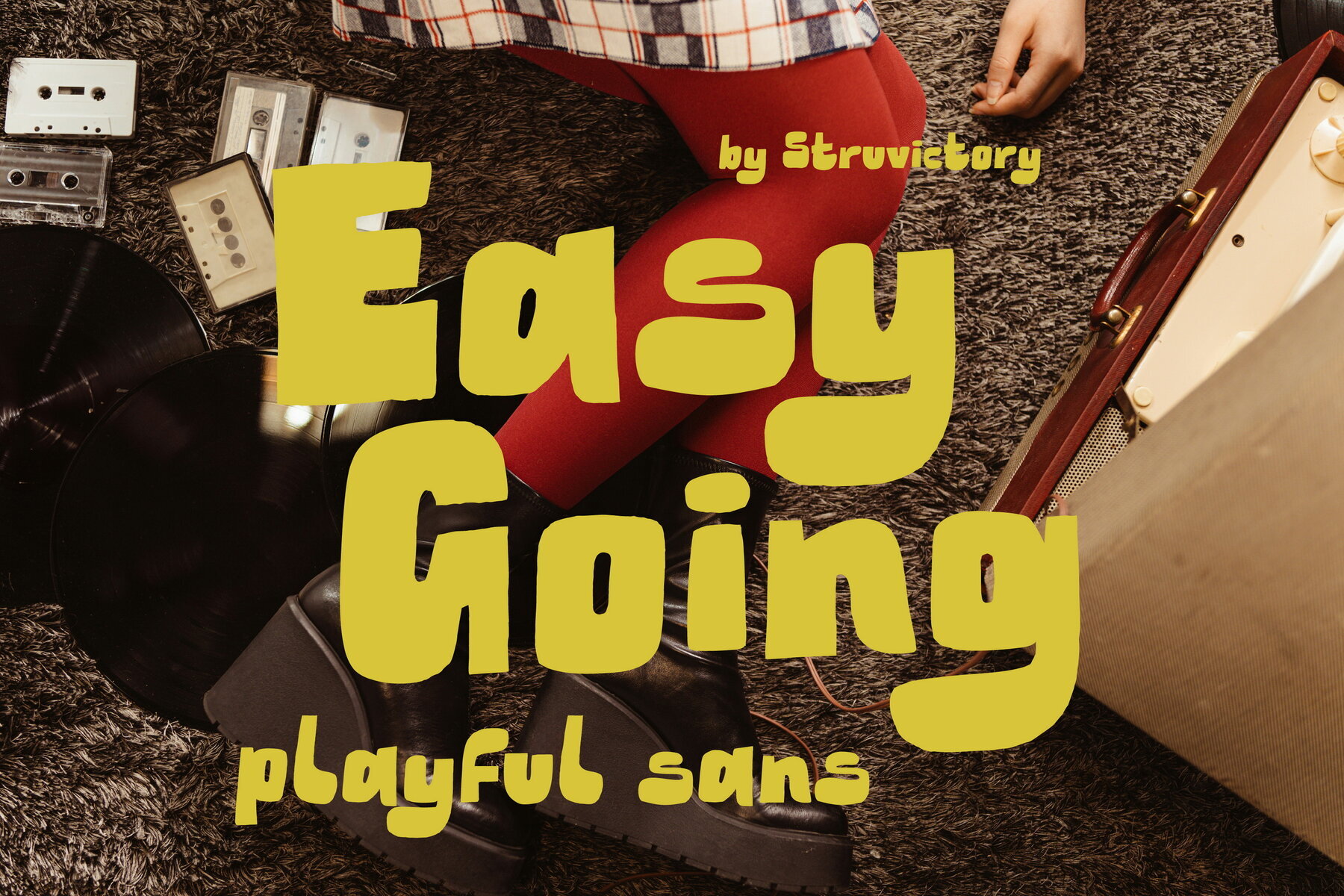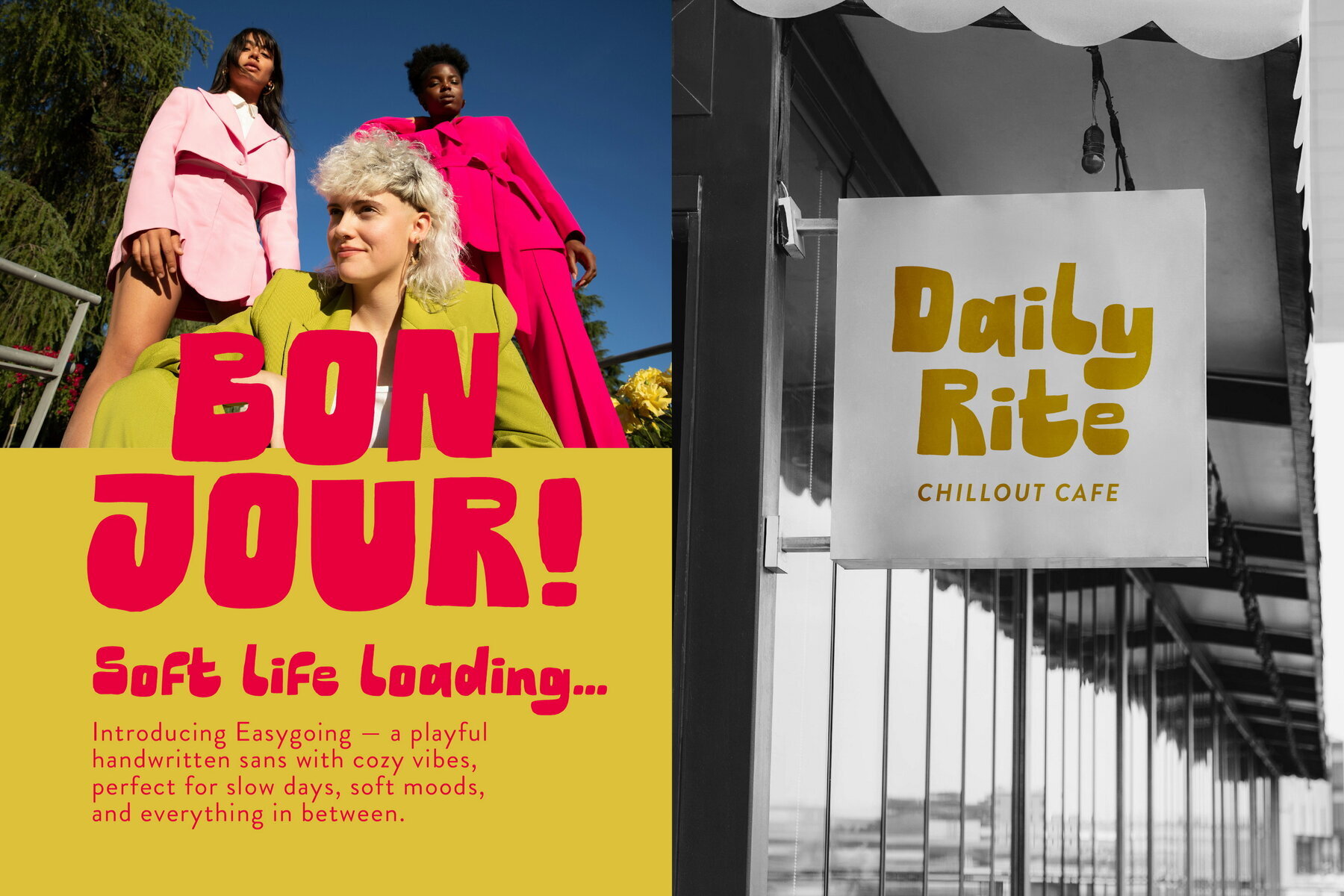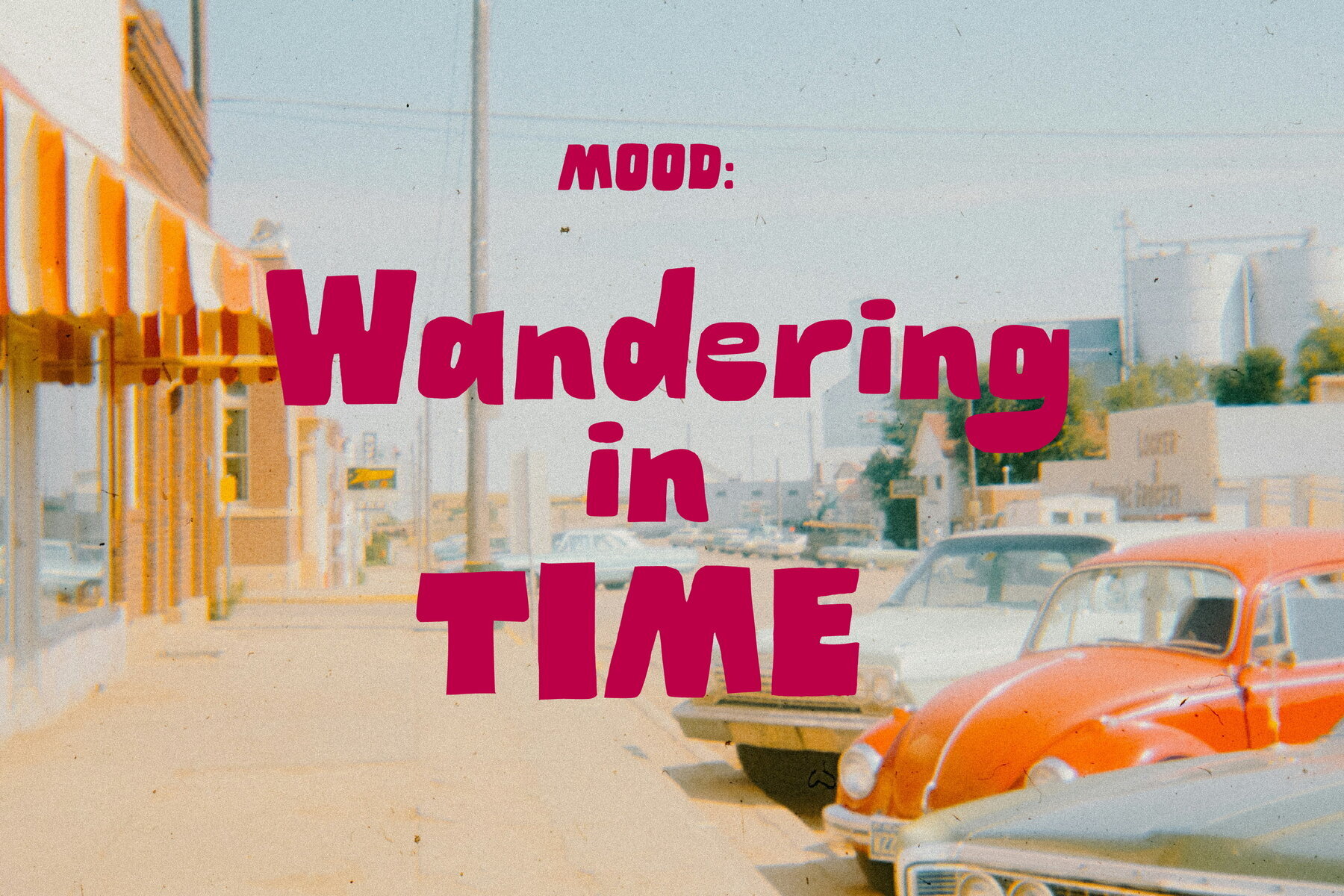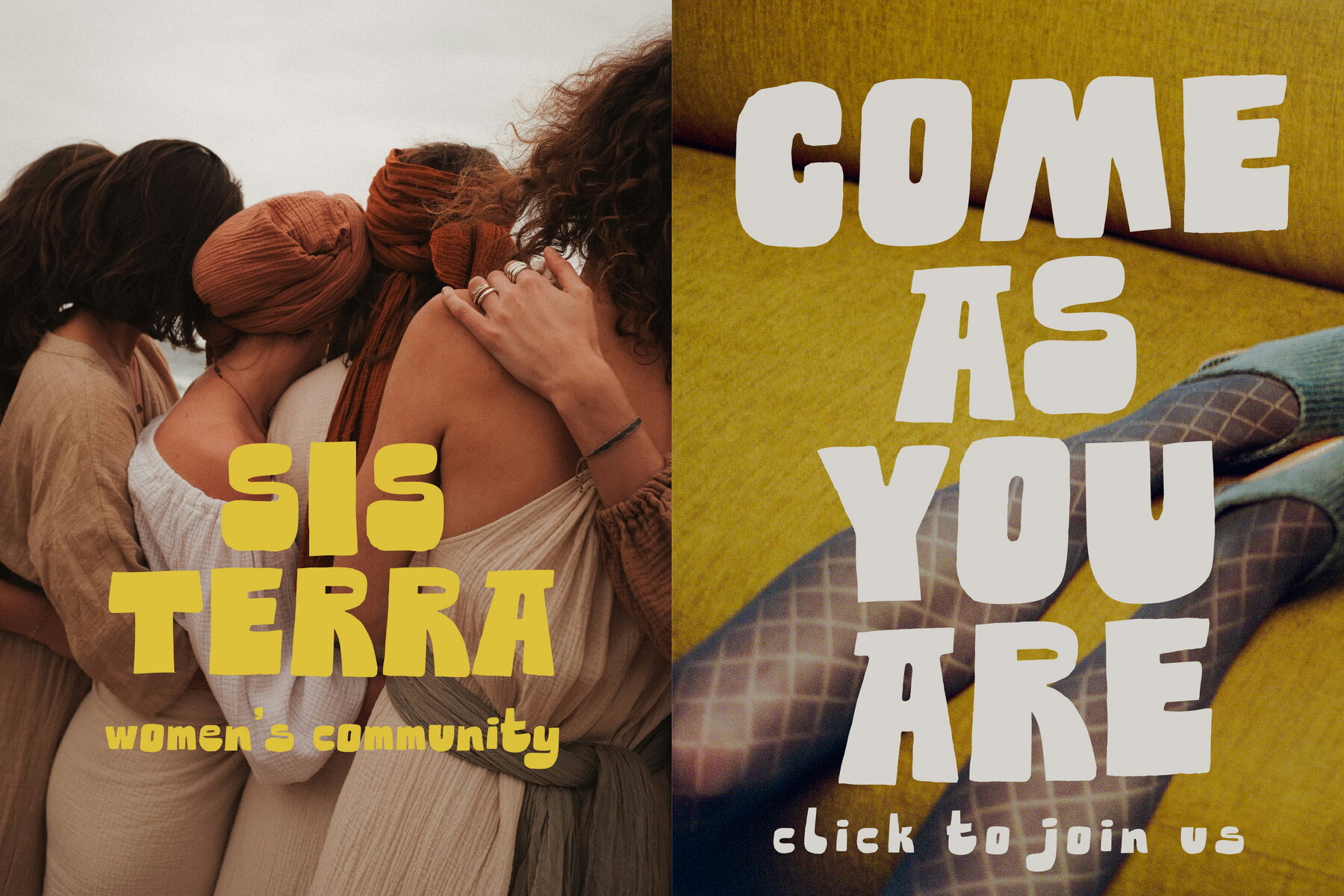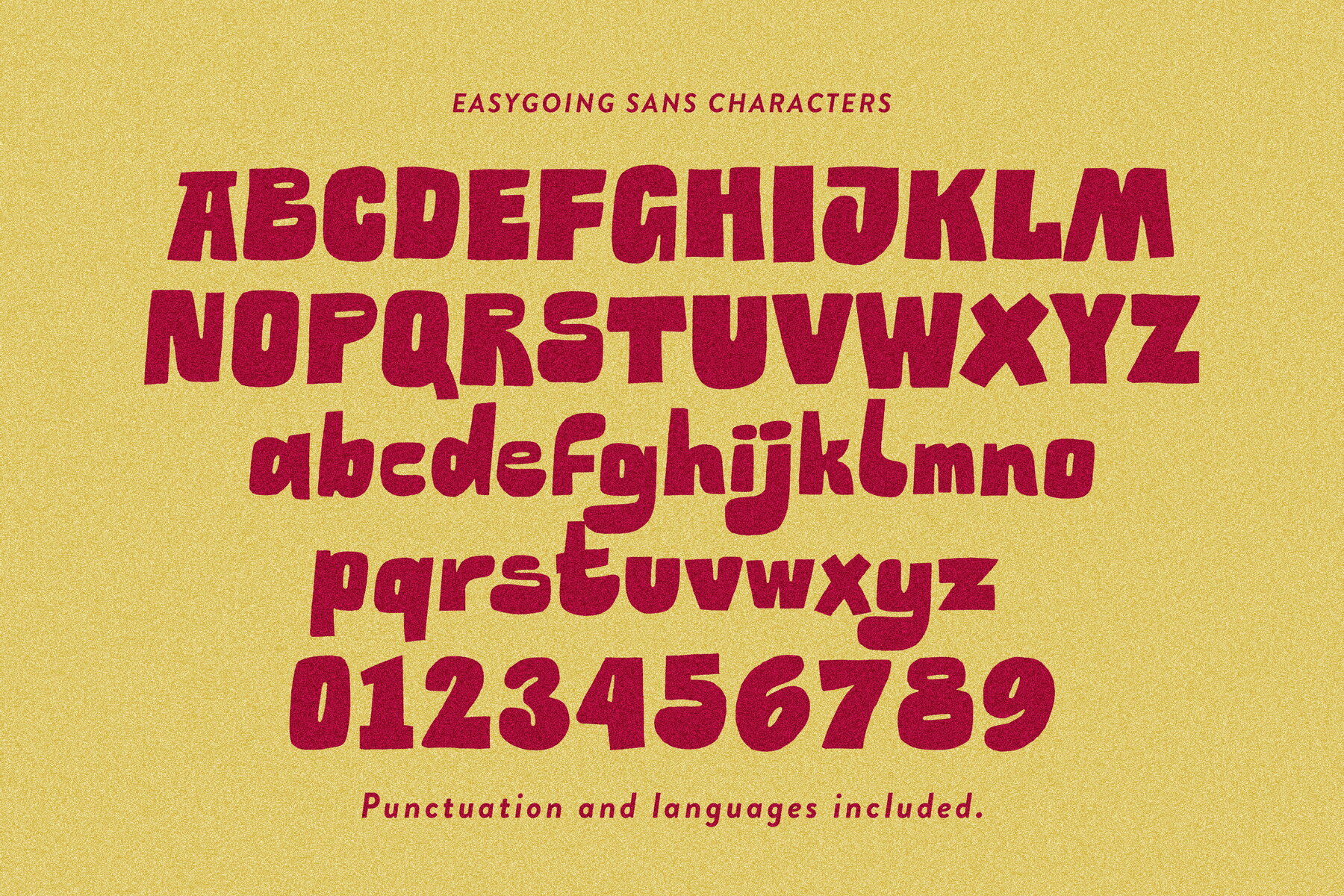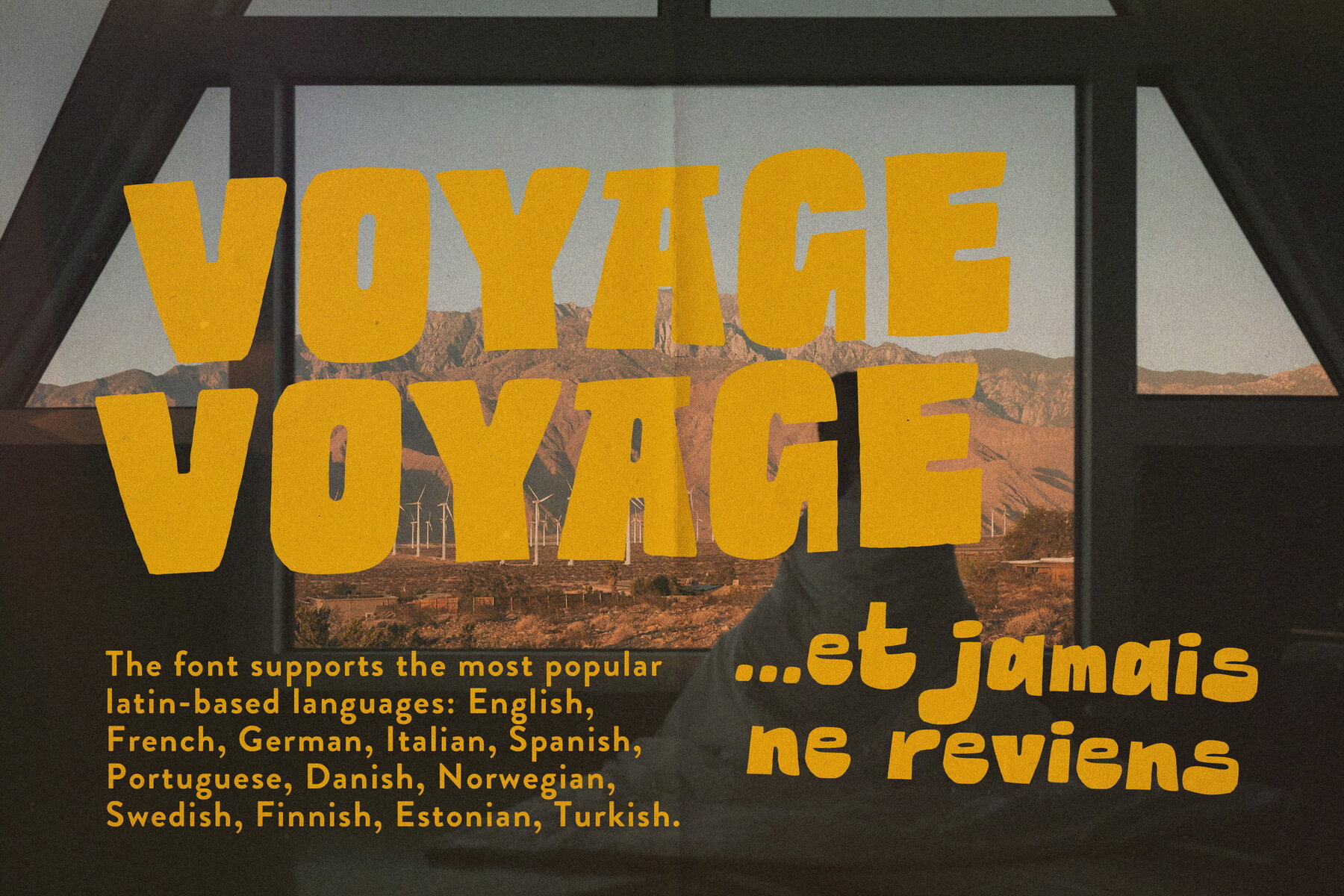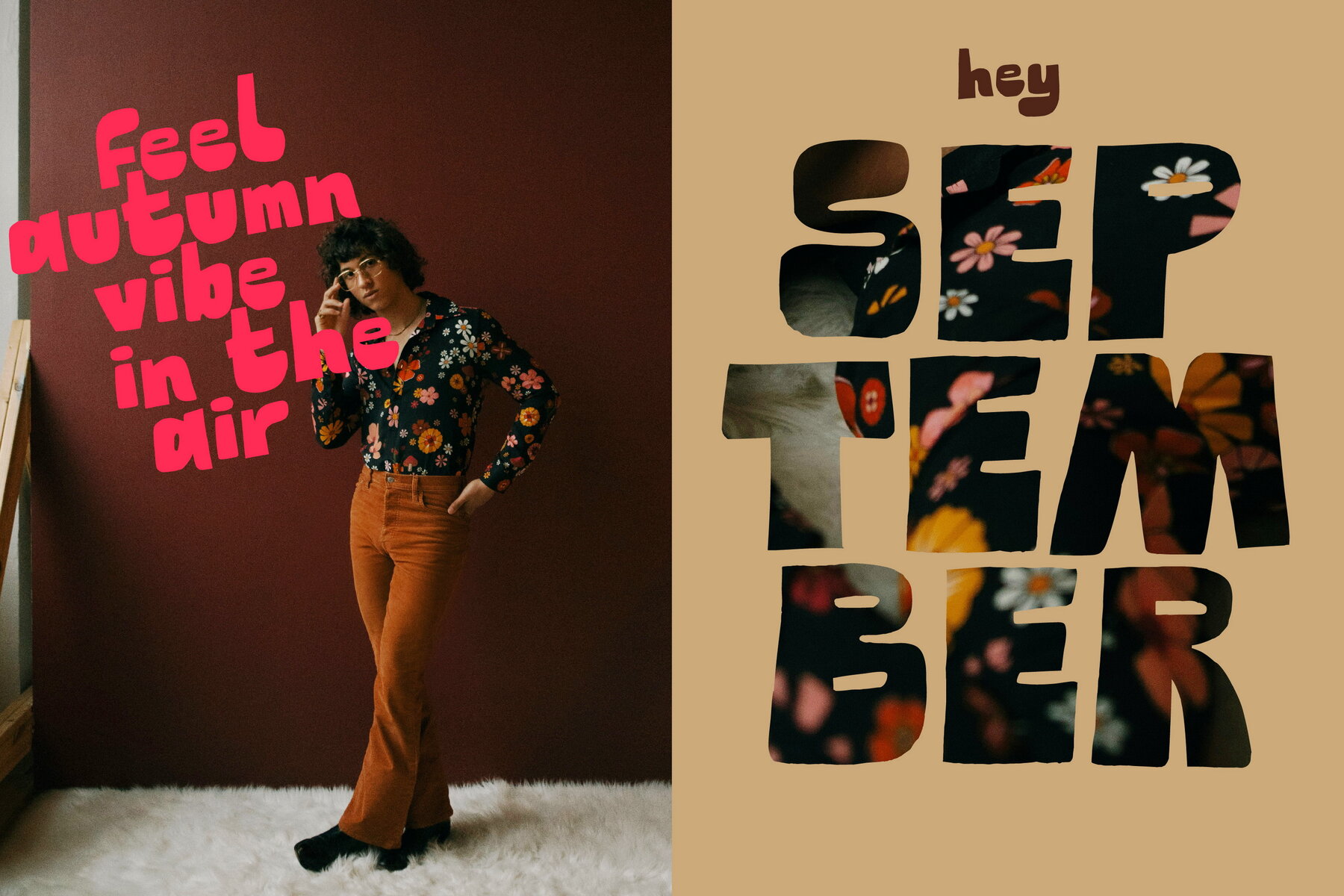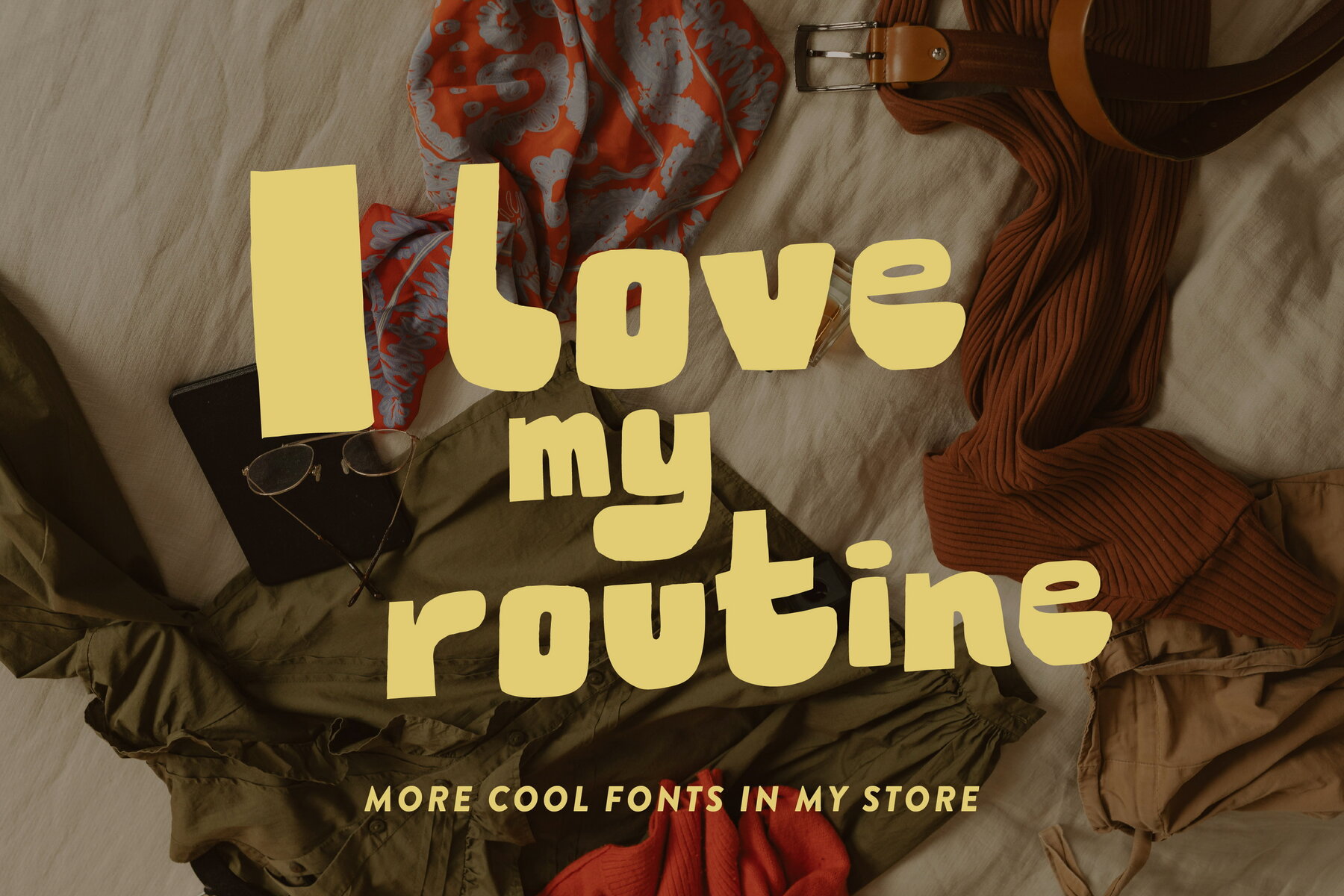
Easygoing Sans Font
Easygoing Sans
Easygoing is a delightful handwritten sans-serif font that embodies warmth and nostalgia, drawing inspiration from lazy afternoons, leisurely routines, and the gentle ambiance of early autumn. Its design invites a world of simple pleasures — understated journeys, comforting habits, and the elegance of experiencing more by doing less. The font's lively forms, harmonious flow, and whimsical character make it ideal for a range of applications, from branding to posters, apparel to cafes, wherever a touch of ease and charm is desired.Easygoing: Handwritten Sans With Nostalgic Flair